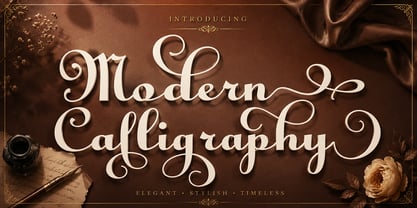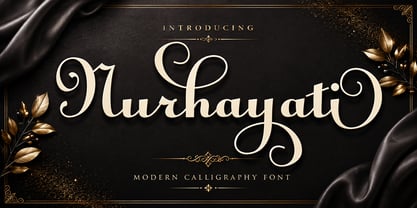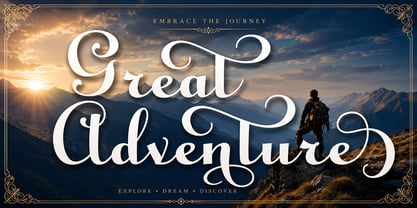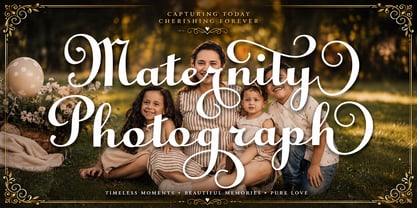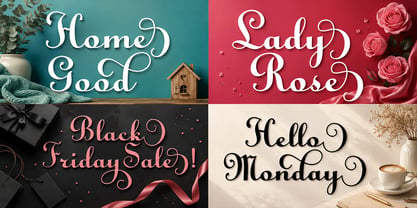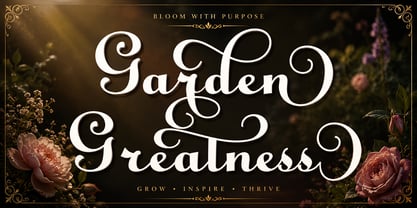
Nurhayati
by Shape Studio
The Nurhayati Font Family was designed by Teuku Saifullah and published by Shape Studio. Nurhayati contains 1 styles.
Nurhayati Font is a new modern script calligraphy font with an irregular baseline. Trendy and feminine style. Nurhayati Font Script looks lovely on wedding invitations, thank you cards, quotes, greeting cards, logos, business cards and more. Perfect for using in ink or watercolour. Including initial and terminal letters, alternates, ligatures and multiple language support